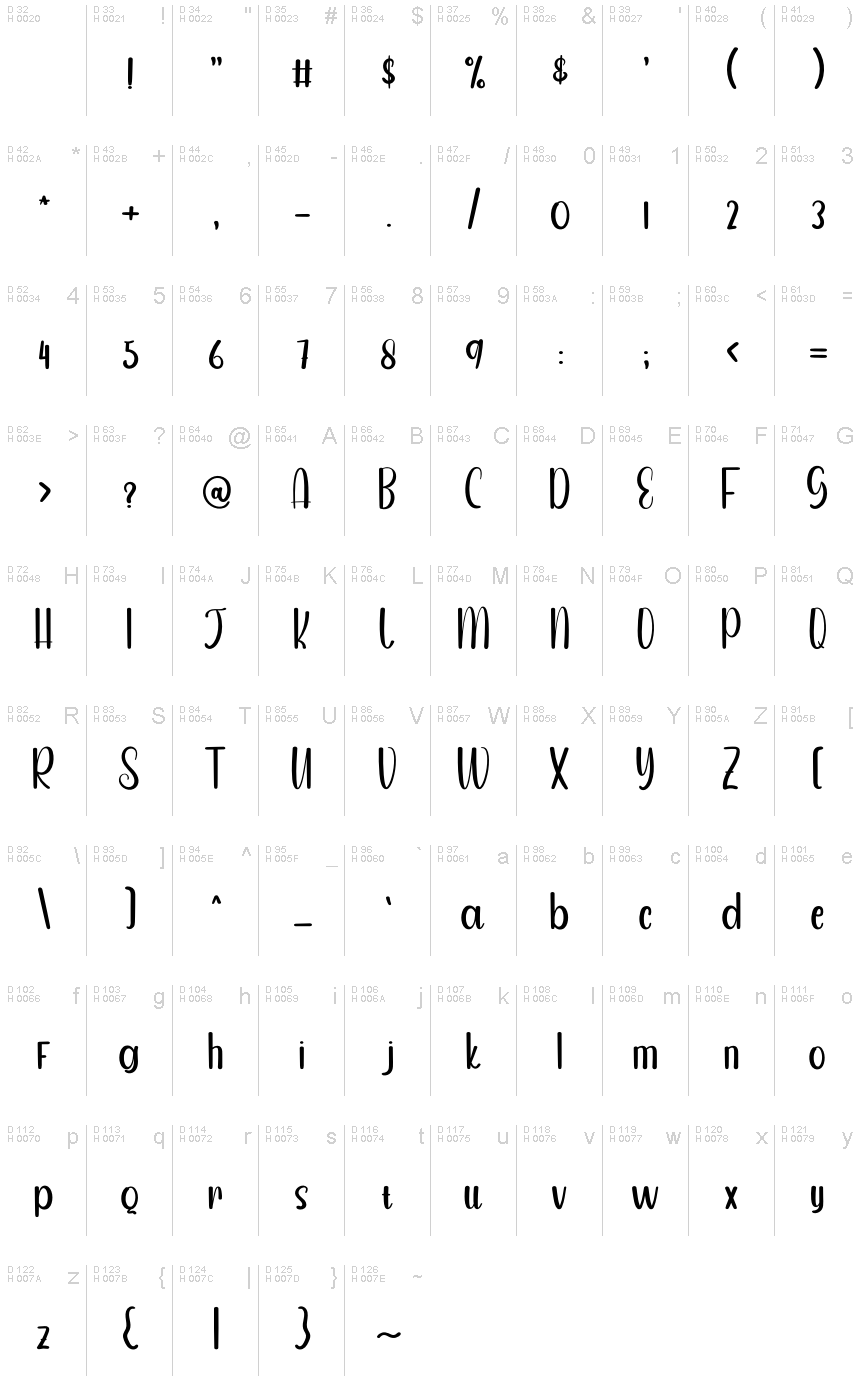
Family Handmade
Family Handmade by PiPi Creative is a font that exudes warmth and authenticity. Its handwritten style offers a personal touch, while the semi-light weight ensures readability without compromising on its breezy, casual vibe. The condensed width of Family Handmade makes it exceptionally versatile for space-conscious designs, allowing it to fit snugly in tight layouts without losing its charm.
The aesthetic appeal of Family Handmade lies in its ability to marry simplicity with personality. Each stroke appears carefully crafted, suggesting an artisanal quality that's both approachable and aesthetically pleasing. This font is ideal for projects requiring a touch of human presence, from personalized stationery and invitations to branding for boutique businesses.
Whether you're creating something with an intimate feel or looking to infuse your designs with a handmade essence, Family Handmade stands out as a font that brings heartfelt character to the table.